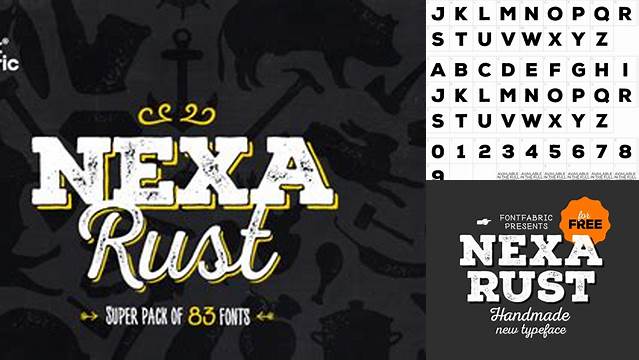
Free Nexa Rust Sans Font: Download & Guide
Hey there, font enthusiasts! 👋 Today, we're diving deep into the world of typography with a special focus on the Nexa Rust Sans Font Family. This versatile and stylish font has been making waves, and for good reason. It's a fantastic choice for a wide range of design projects. And the best part? You can get a Nexa Rust Sans font family free download! In this comprehensive guide, we'll explore everything you need to know, from its features and uses to how you can snag your own copy.
What Makes Nexa Rust Sans So Special?
So, what exactly is it about the Nexa Rust Sans that has designers and creatives buzzing? 🤔 This font family isn’t just another pretty face; it's a workhorse designed for both aesthetic appeal and practical application. Here's a breakdown of what makes it stand out:
1. Design and Aesthetics: The Nexa Rust Sans boasts a modern and clean design. It offers a friendly yet professional look, making it suitable for various projects. This font strikes a great balance between being readable and stylish. The design is clean, making it easy on the eyes, especially for lengthy text passages. It has a contemporary feel without being overly trendy or distracting. You can use this font family for a website, a presentation, or even a personal project; you can always count on its timeless appearance.
2. Versatility: One of the key strengths of Nexa Rust Sans is its versatility. The family includes a wide range of weights and styles, including regular, bold, italic, and many more. This gives you incredible flexibility to adapt the font to different design requirements. Need something subtle for body text? Choose a light weight. Need a bold header that grabs attention? Opt for a heavier weight. With such a range of options, you can use Nexa Rust Sans for everything from headlines and subheadings to body copy and call-to-action buttons. You can use it in print or on screen, and it always looks great.
3. Readability: Let’s be honest; a font can look beautiful, but if it's hard to read, it's useless. The Nexa Rust Sans excels in readability. Its clear letterforms ensure that your message comes across loud and clear. This is crucial whether you're designing a website, creating marketing materials, or putting together a presentation. This font is designed to ensure that your text is easy to read at various sizes and on different devices. The designers of the font have paid special attention to spacing and letter structure to achieve high readability.
4. Emotional Impact: Fonts have personalities. They can evoke different emotions and set the tone for your design. The Nexa Rust Sans leans toward a friendly and approachable vibe. It's not overly serious, making it perfect for projects that aim to connect with the audience. If you're going for a warm, inviting feel, this is an excellent choice. The neutrality also works if you want to convey a sense of trustworthiness. Overall, Nexa Rust Sans provides an excellent platform to convey a positive experience.
Where Can You Use Nexa Rust Sans?
The Nexa Rust Sans Font Family is a true chameleon when it comes to applications. Here are some examples of where you can effectively use it:
- Websites: From headlines to body text, Nexa Rust Sans provides a clean, modern look for websites. It helps to create a positive user experience by improving readability. You can easily adapt to the font family to match your website's design.
- Marketing Materials: Brochures, flyers, posters – you name it. The versatility of Nexa Rust Sans makes it a great choice for all sorts of marketing materials. Its readability ensures that your message is clear and attention-grabbing.
- Presentations: Make your presentations pop with a clean, professional font. The variety of weights and styles available in Nexa Rust Sans allows you to create visually engaging slides. It will definitely help you to get your point across in an impactful way.
- Logos and Branding: Use Nexa Rust Sans for your brand's logo or overall branding. Its versatility allows it to be integrated into a wide variety of design projects. This will ensure a consistent and recognizable brand identity.
- Social Media Graphics: Stand out on social media with eye-catching graphics. Nexa Rust Sans is a great option for creating posts that grab attention and communicate your message effectively.
- Editorial Design: Use this font to create editorial content. From magazines to newsletters, Nexa Rust Sans can make your content look organized and easy to read. The variety of weights means you can create hierarchy.
- App Design: Nexa Rust Sans is perfect for app design because of its clean and modern look. It can be easily integrated into the UI design and maintain good readability.